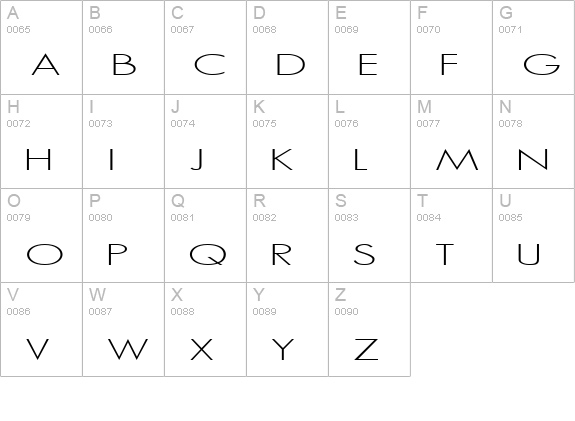
RSSansSerif Medium Font Details
RSSansSerif Medium is a balanced, medium-weight variant in the RSSansSerif typeface family \xE2\x80\x94 well suited to sub-headlines, navigation, and balanced editorial work.
RSSansSerif Medium font is a modern and versatile typeface that exudes elegance and sophistication. Its balanced proportions and clean lines make it a perfect choice for various design projects, from branding to editorial layouts. The medium weight of the font strikes a harmonious balance between boldness and readability, making it ideal for both display and body text. What sets RSSansSerif Medium font apart is not just its impeccable design, but also the fact that it is available for free download at FontsMarket.com. This means that you can easily access and use this high-quality font in your projects without any cost. Whether you are a graphic designer, a web developer, or a content creator, having RSSansSerif Medium font in your toolkit will enhance the visual appeal of your work and help you stand out from the crowd. Download RSSansSerif Medium font for free today at FontsMarket.com and elevate your designs with its timeless charm and versatility.